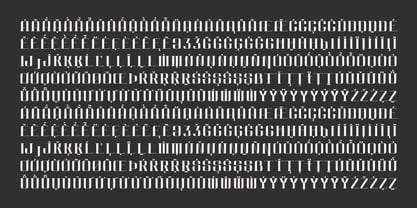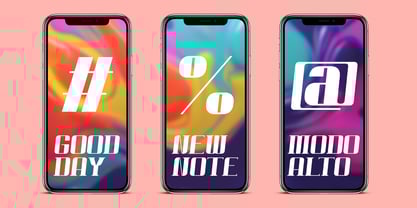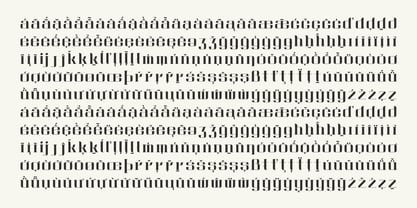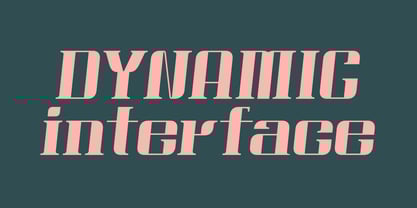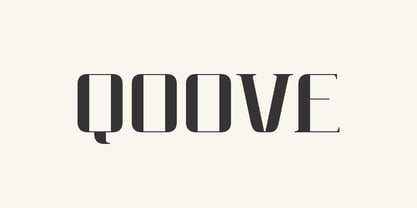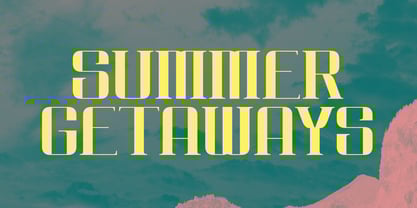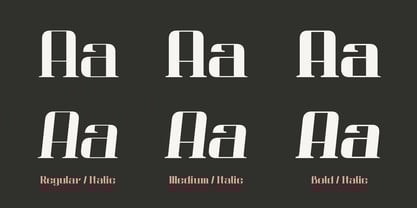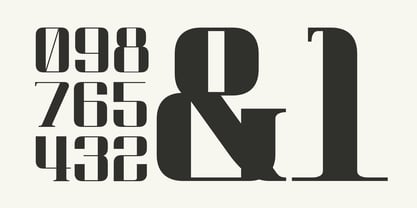
Qoove
by Outerend
The Qoove Font Family was designed by Taka Ikari and published by Outerend. Qoove contains 6 styles and family package options.
A modern serif font with thick, confident strokes that blend a unique contemporary edge with a timeless, traditional feel.